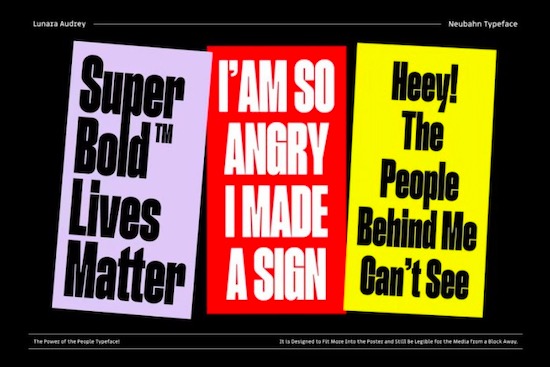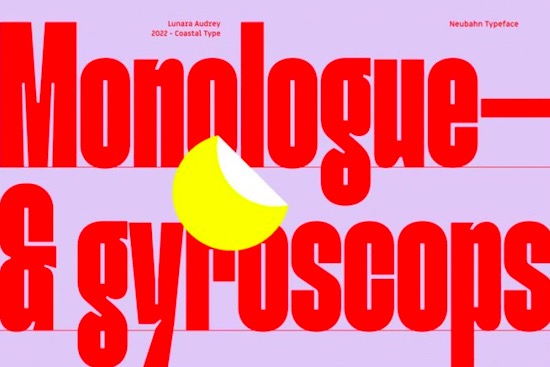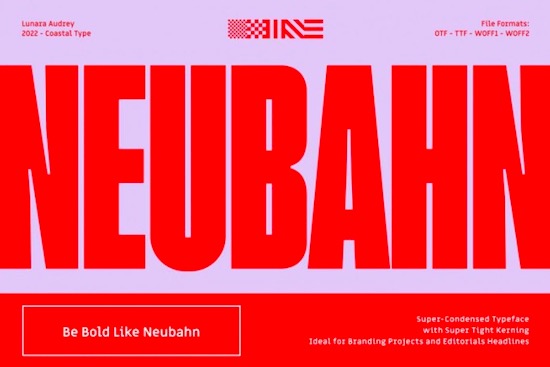
Neubahn Font is a Super Condensed Sans Serif Typeface with Tight Kerning. Ideal for Branding Projects & Editorial Headlines
Uppercase & Lowercase
Punctuation & Number
Ligatures
Neubahn Sans Serif Font